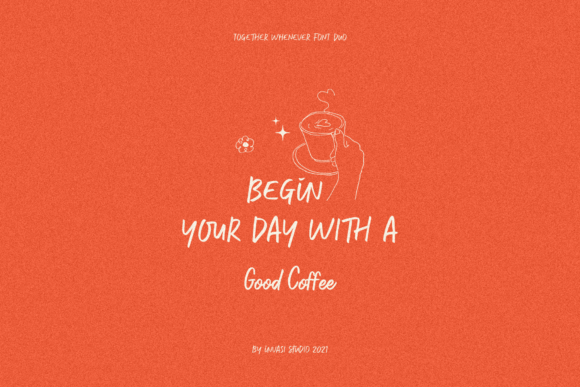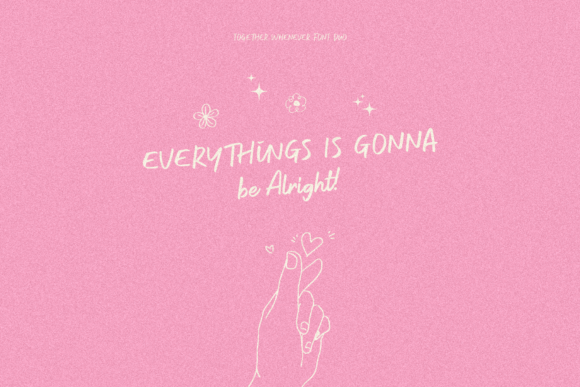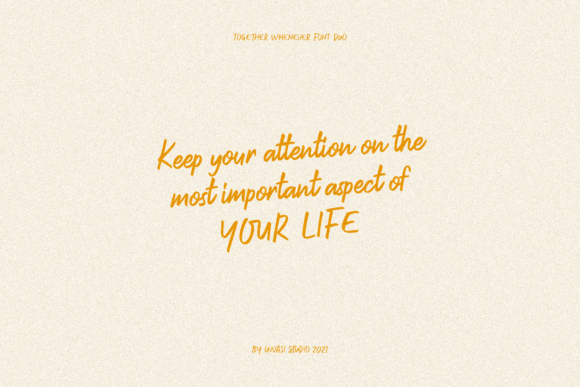
About Together Whenever Font
Together Whenever is a sweet and delicate handwritten font. Dainty and joyful, this font will be ideal for writing wedding invitations, cards or any other design that may need a romantic, personalized touch!